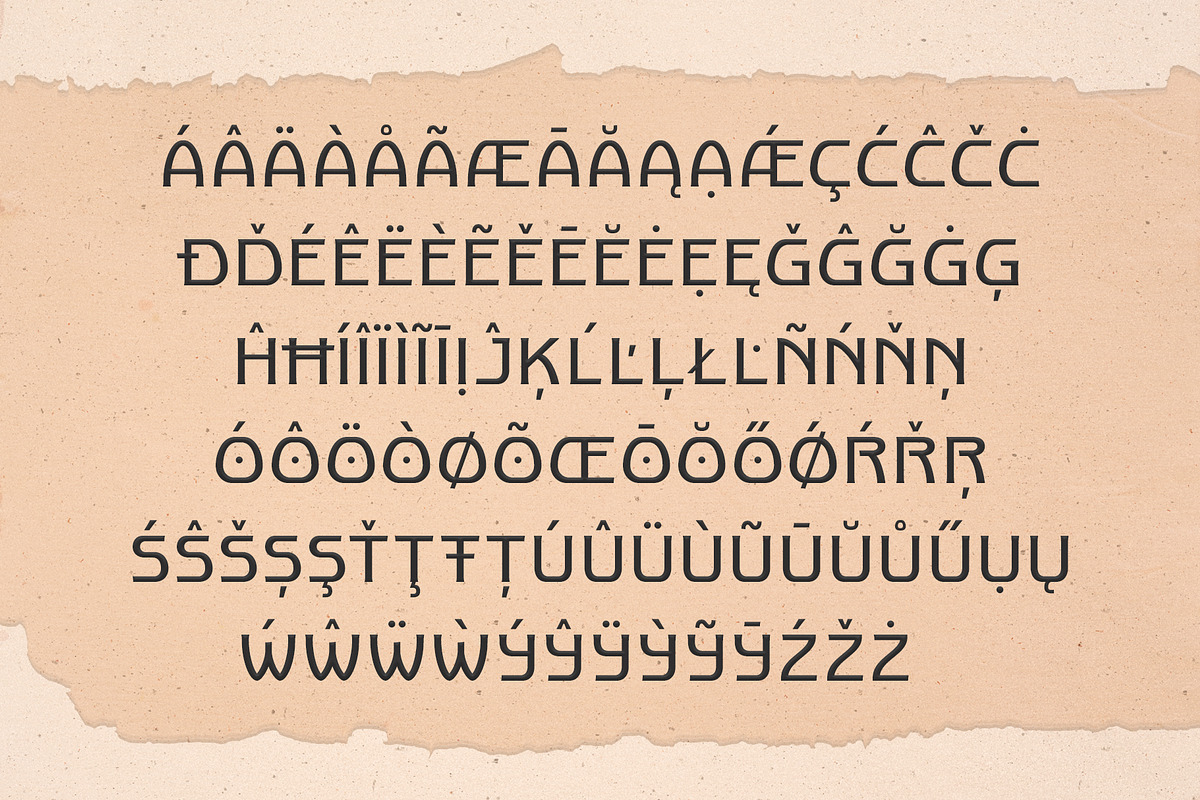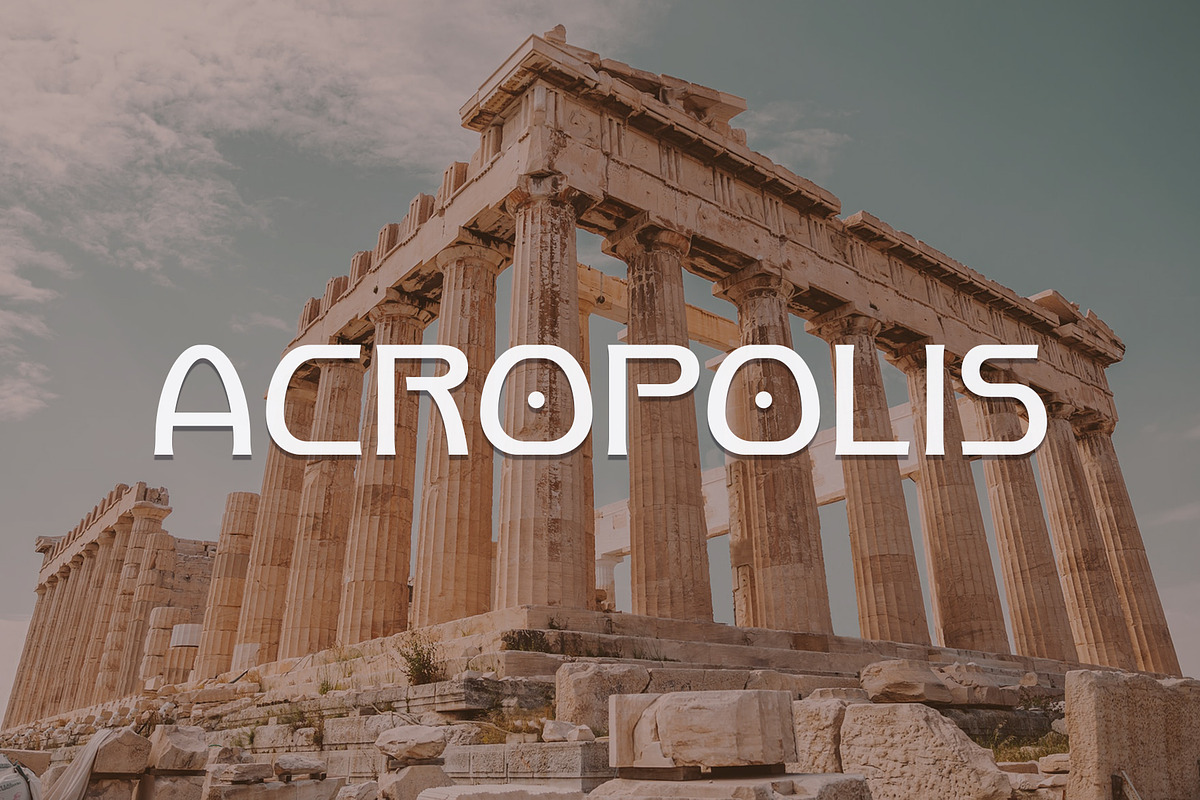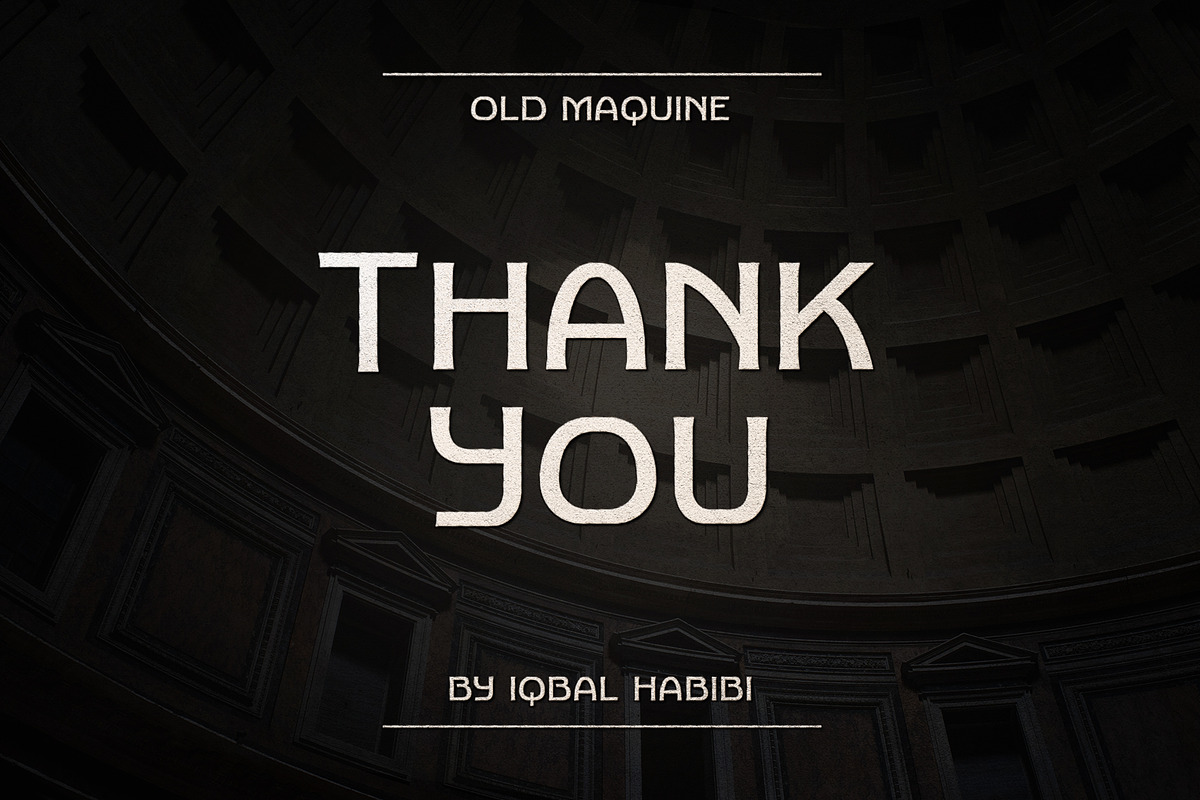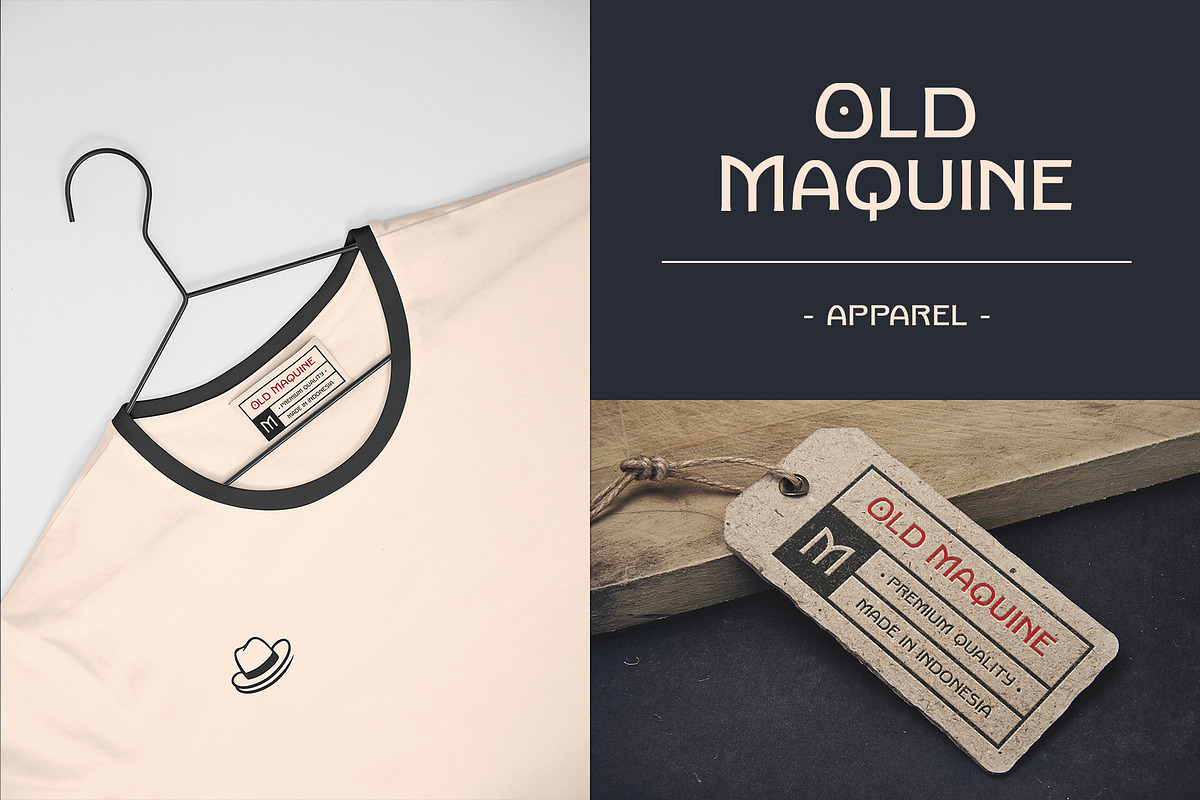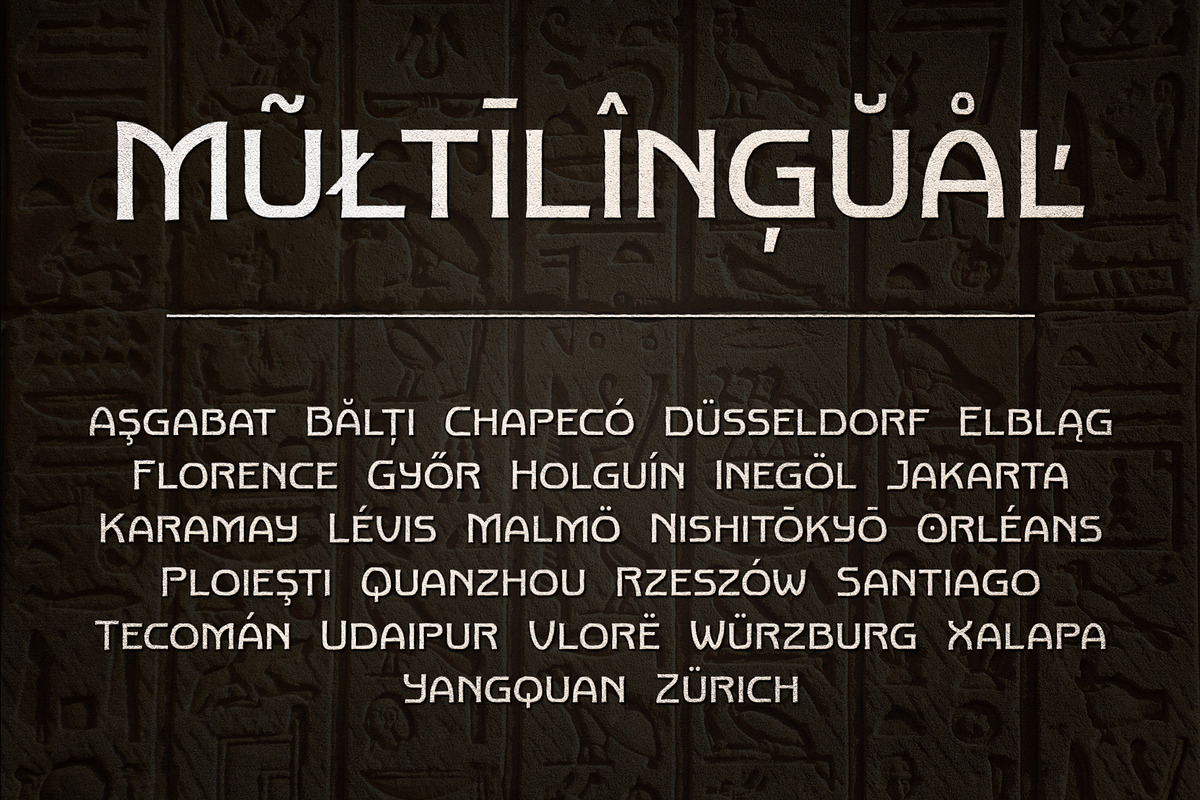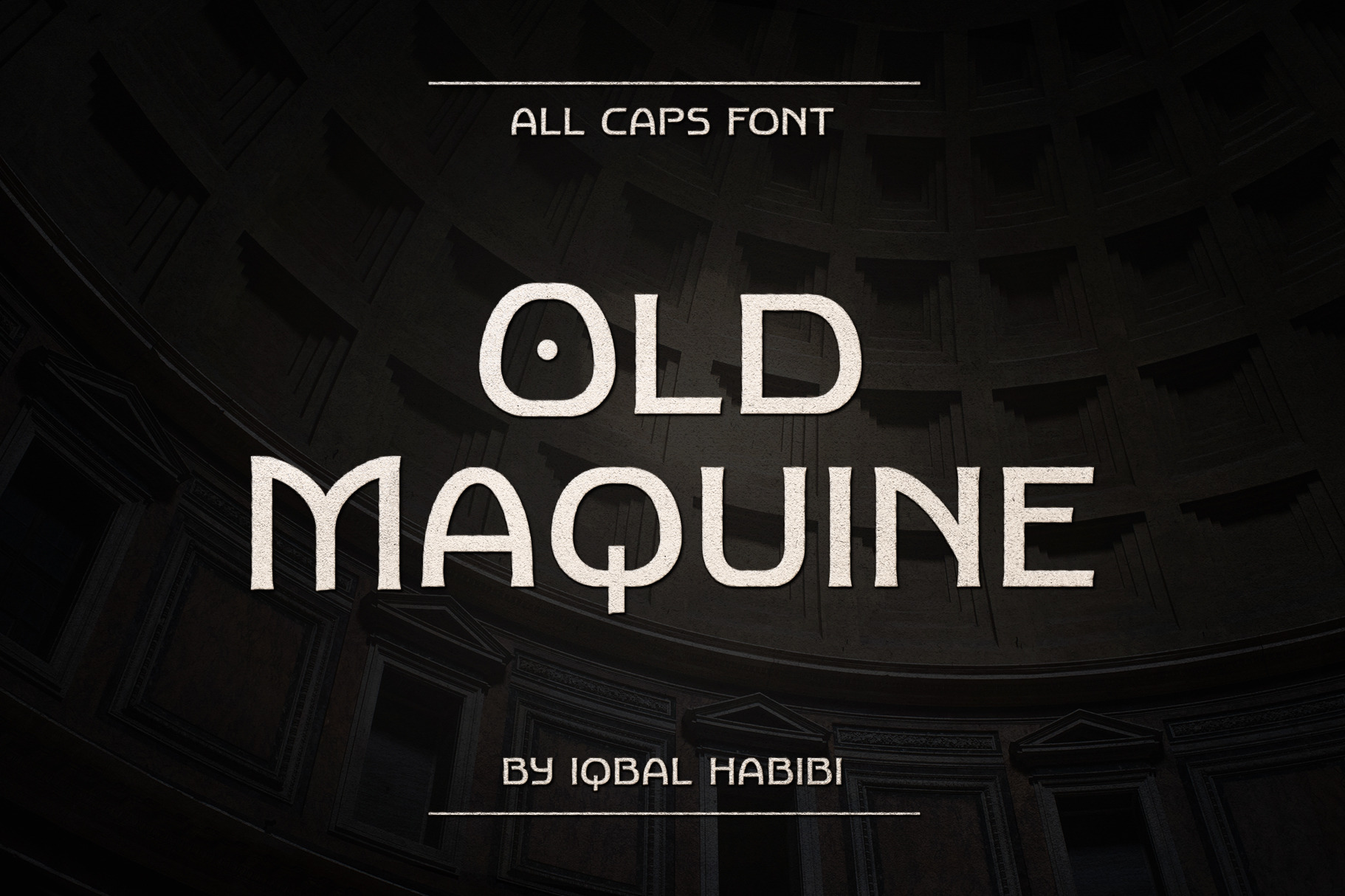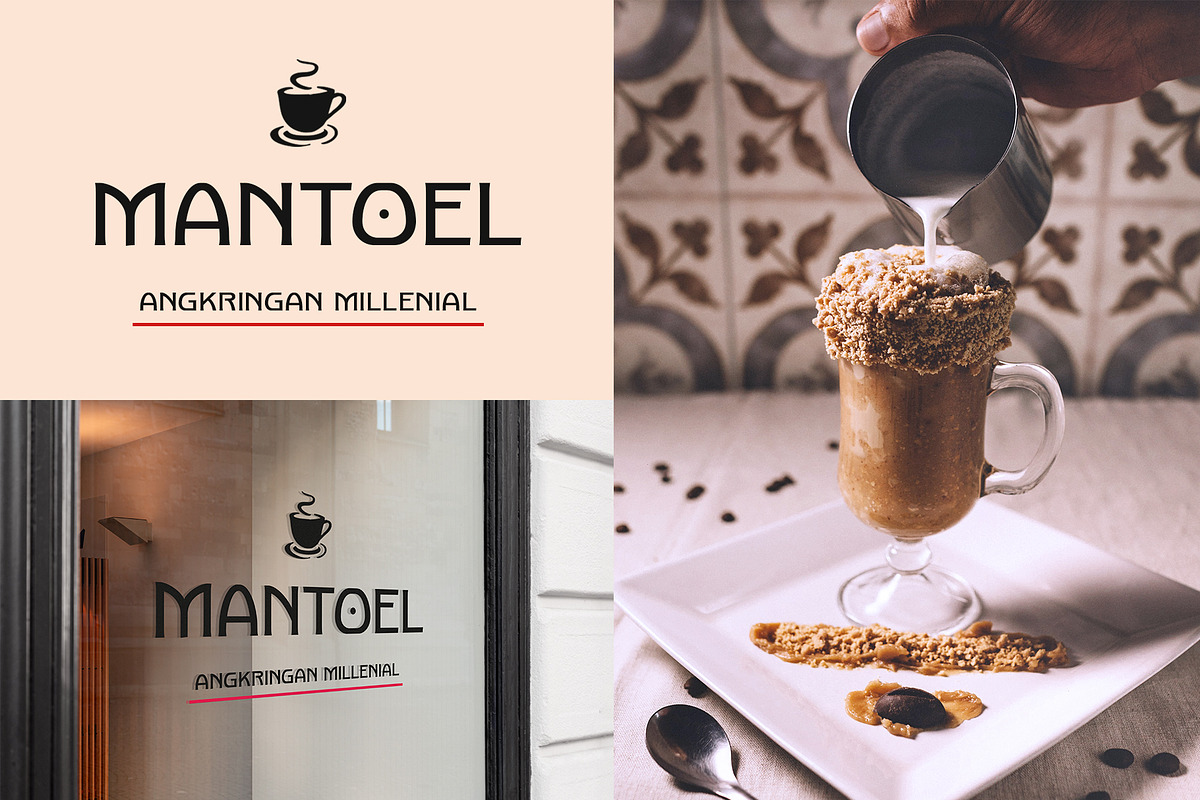
Old Maquine - Display Font
Old Maquine is a display font inspired by the old typefaces in 1900s. Old Maquine has clean design and gives the authentic looks. You can apply Old Maquine Font to your design project, such as Book covers, T-shirts, Logos, Signage, and many more.